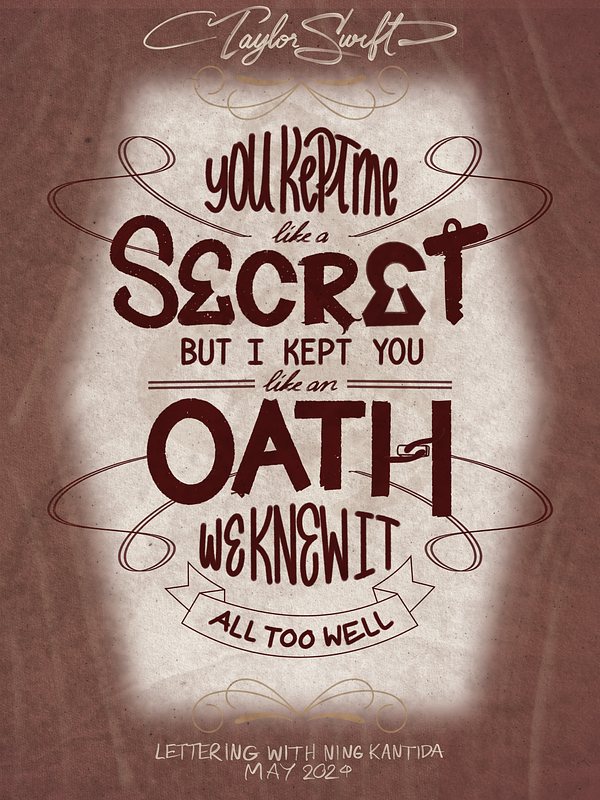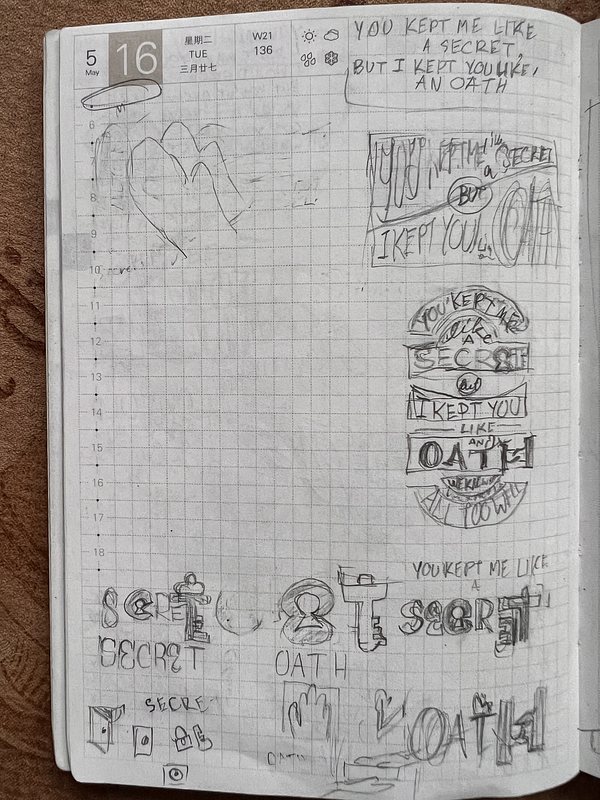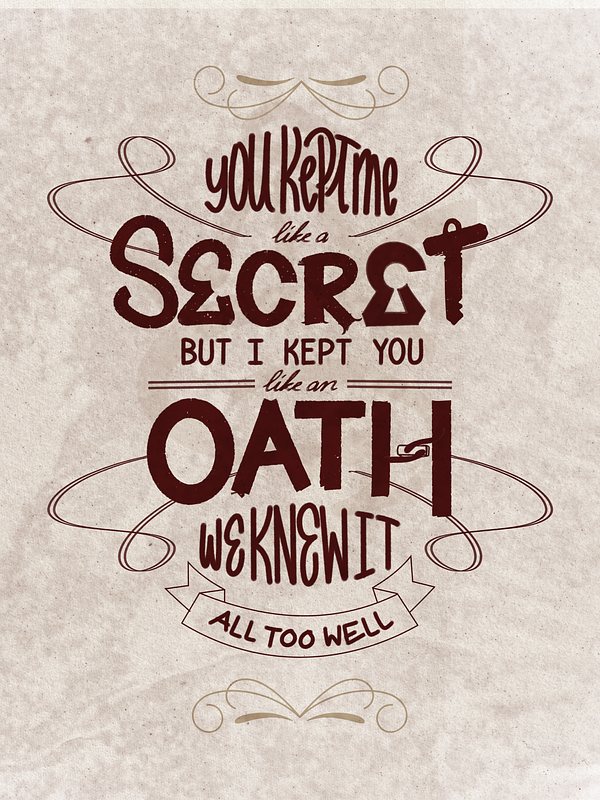
The Lyrics Lettering 00016-All Too Well by Taylor Swift
The Inspiration
After listening to her album "Folklore", I recently became a Taylor Swift fan, realizing her charm and the lyrical genius she is. I now totally get why she's so famous. It took me a while to realize how great she is, but it's better late than never.
Among all her songs, the song "All Too Well" stands out as a true masterpiece. Its lyrics and imagery beautifully captured the essence of a complicated relationship. One particular line that struck me was, "You kept me like a secret, but I kept you like an oath." I was so moved by the emotion and symbolism of the relationship dynamics in this line that I decided to create a lettering piece inspired by it.
I slightly changed "I remember it all too well" to "We knew it all too well," to highlight the shared understanding of the toxic relationship in the past. You can see the past beyond just reminiscing with this adjustment, as it adds more layers to the story without the song's context.
The Process
In designing the lettering, I aimed to incorporate symbolism from the song's themes of secrets and oaths. So I decided to use a lock and key, as well as an oath ceremony, in the design.
Creating this design required meticulous attention to detail and precise composition. Despite spending two hours into the initial layout, I couldn't finish the design in one sitting. I had to settle for a rough draft, with plans to revisit it for improvements
While this style of design may not be something I tackle frequently, the detailing and precision required for such a piece made me realize the dedication and skill that go into lettering art.